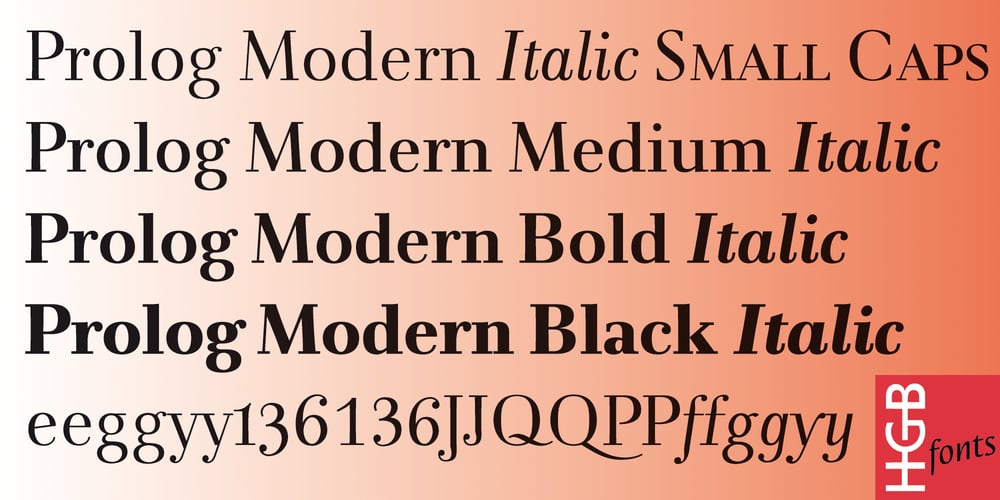
Prolog Modern Font Family was designed by Hellmut G. Bomm and published by HGB fonts. Prolog Modern contains 8 styles and family package options. Are you looking for an alternative to a Modern Style Typeface? Here it is: Prolog Modern is part of an extended font family. Based on Giovanni Francesco Cresci’s font samples from 1570, the classicist Prolog Modern was created to be used for text size and is designed for quantity typesetting. Like all Prolog fonts, Prolog Modern has a straight e as well as a slanted (Venetian) e. Additional variants (Table Figures, Old Style Figures and alternatives of Q-P-g-y) are available via OpenType features. The typeface is pleasantly readable in small degrees and yet independent. A good looking and easy to read text font, with some brothers and sisters for appropriate accolades.